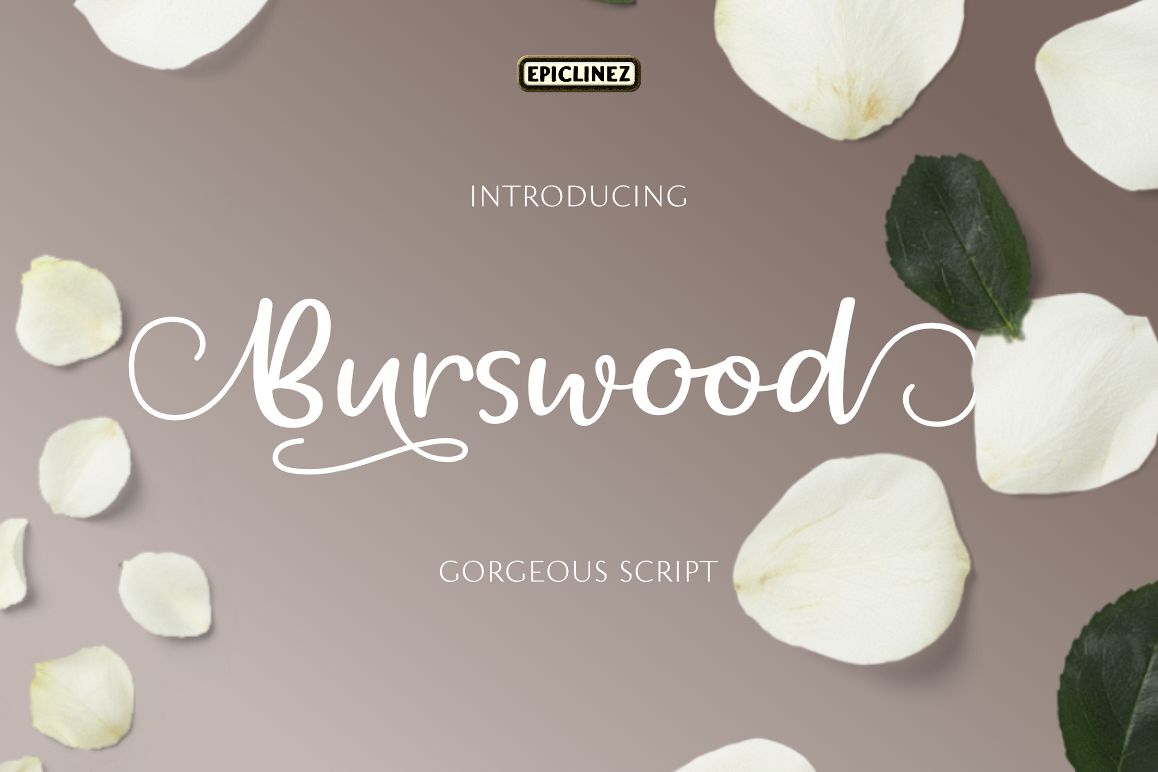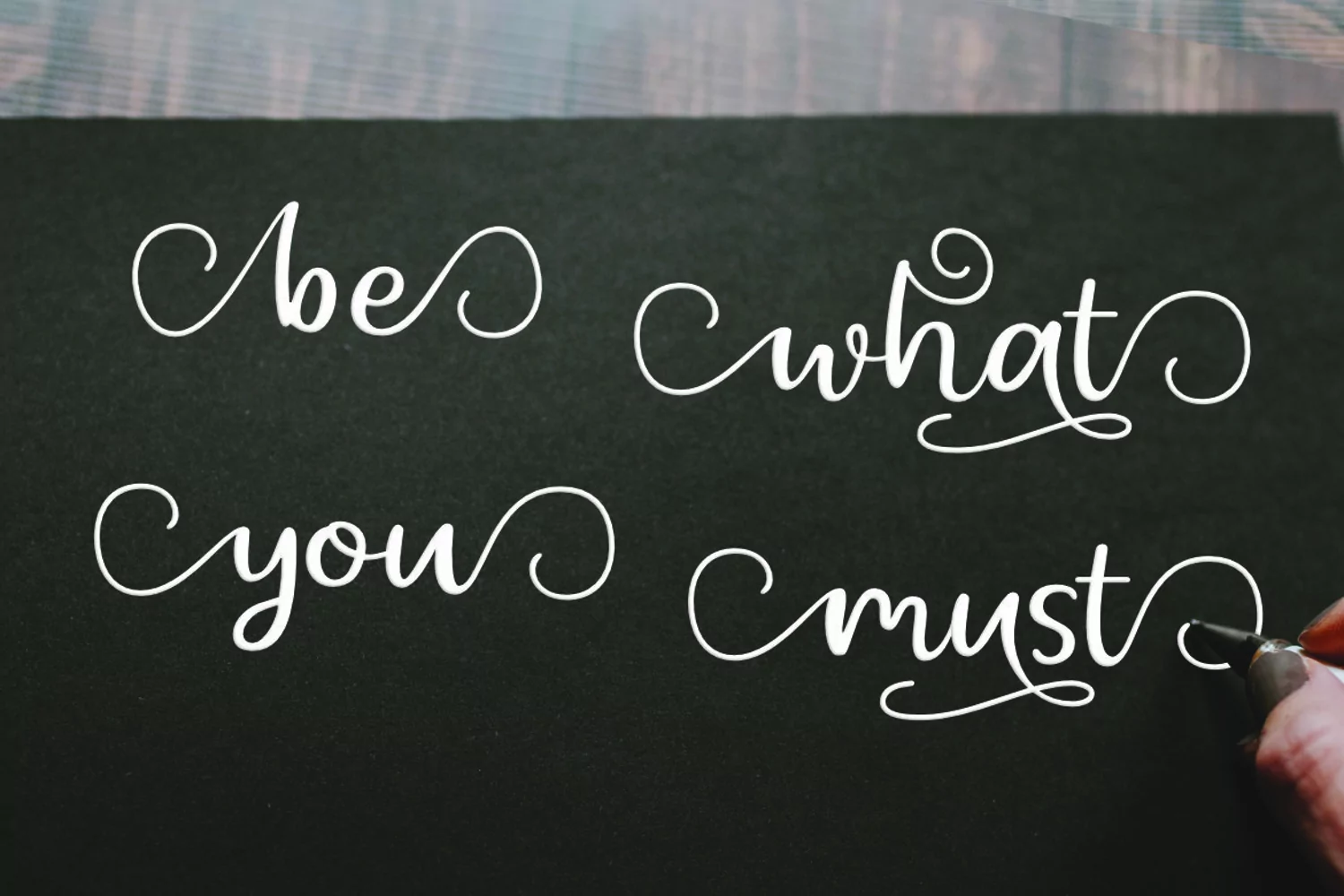
Hello, Introducing Burswood, a gorgeous script font.
Loaded with more than 100 alternates letters and ligatures, designed to please the eyes and the hearts.
Naturally made by handwriting, the script font offers a hand made like feel into your creative design.
Fonts include multilingual support.